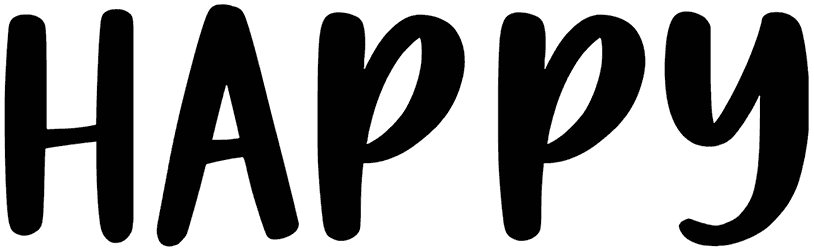
Happy Font
Do you like to show off your novel layout with a minimal and cute outward appearance? With a soft and bulky font, this invitation font is capable of throwing a cheerful and modern vibe into your words. Even if there is no backup of lowercase letters, Happy would be enough to decorate your projects, for instance planners, quotes, modern websites, or more of the same.